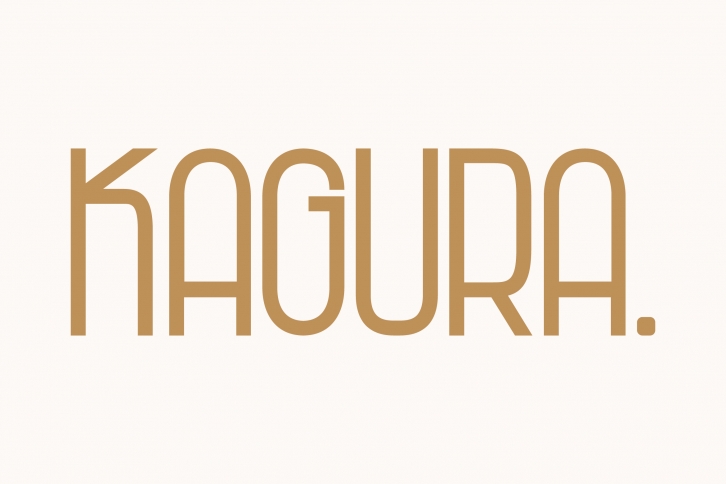
Kagura is a trendy and unique font with an authentic style. It was designed by Ef Studio and it's a great choice for creative people who need such a font. It was released on May 7, 2019 and the file size is 11.24 MB. Kagura will add an organic vibe to any design idea!